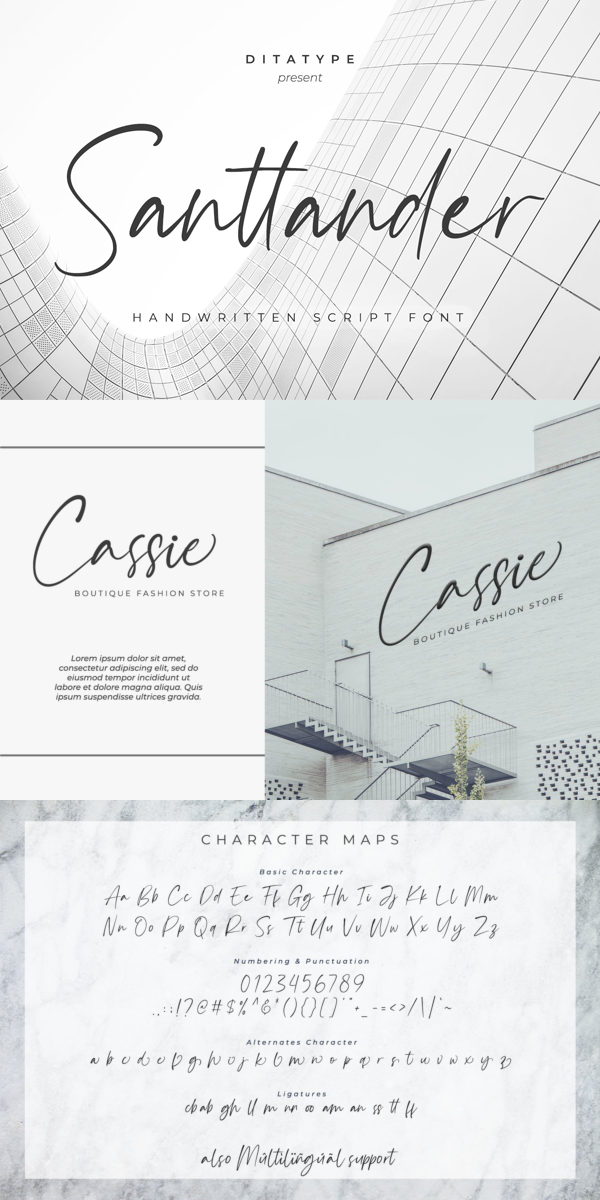
Santtander Font
About Santtander
Santtander is a modern handwritten font. With a classy and natural handwritten style, it brings a classy and chic typeface. Santtander is best used for weddings, branding, logotype, and quotes.
– Beautiful Ligatures